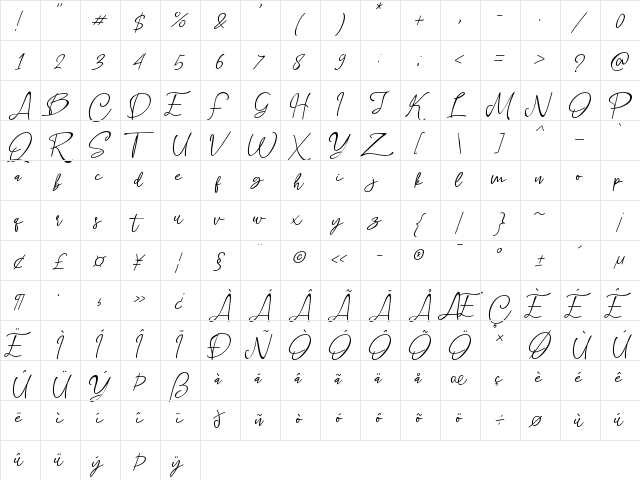
Callovia Regular
Design Context for Callovia Typeface
Callovia is a composed and adaptable typeface that performs quietly and consistently across a wide range of design contexts.